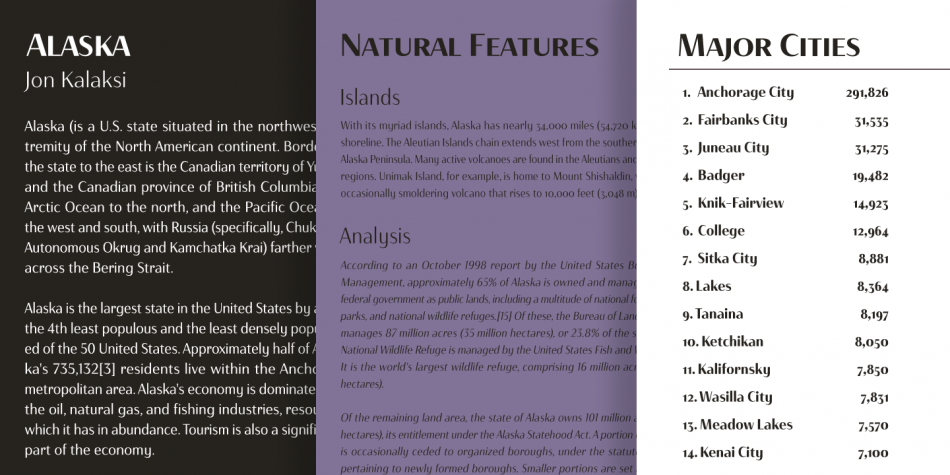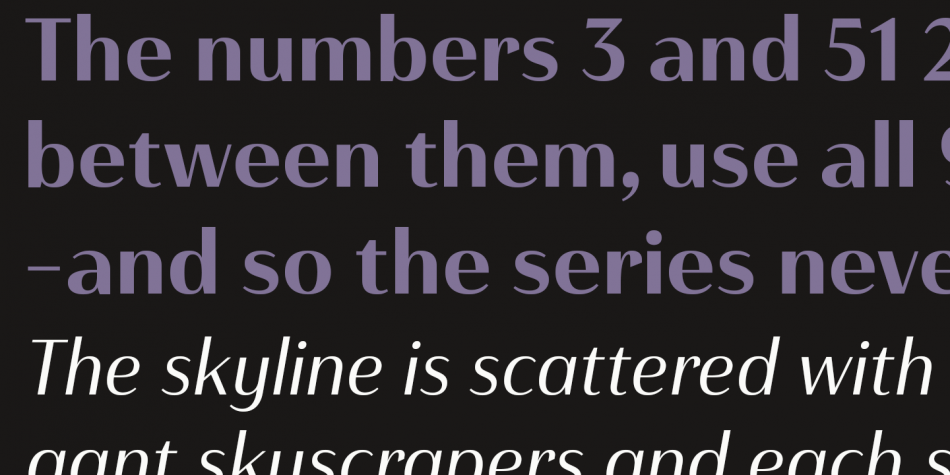
Haboro Contrast Font Family
Introduce a family of sans serif fonts. Introducing Haboro Contrast Font Family! Haboro Contrast was designed by Jeremy Dooley. Capitalize on Contrast’s style with OpenType features, too. Packed with options like OpenType ligatures, stylistic sets, fractions, crafted small caps and old-fashioned figures, this font will keep your work fresh and attractive. If you need even more combinations for the right statement, use the entire Haboro hyperfamily and create the right balance to capture your reader’s eye…